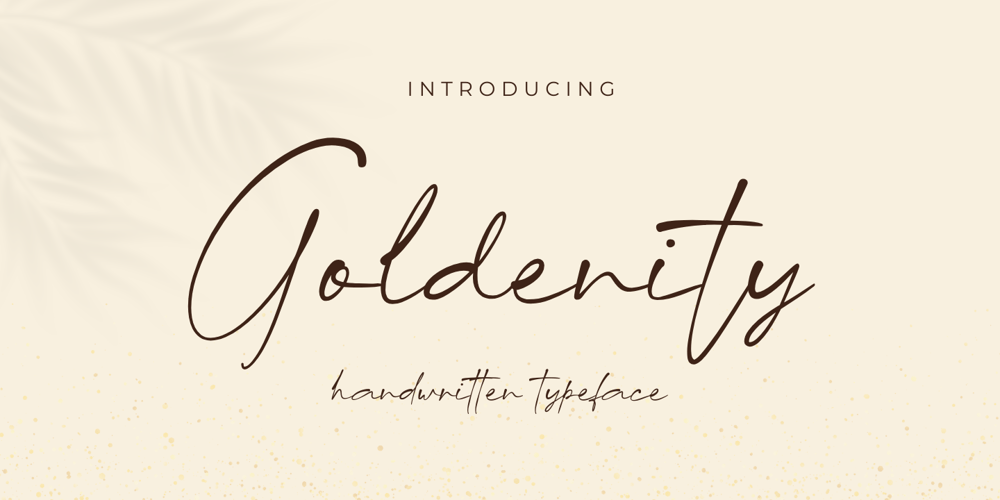
Goldenity
Goldenity font
Goldenity Font Family was designed by Khai Dir and published by Gatype. Goldenity contains 1 styles and family package options. Discover Goldenity Font, a modern handwritten font with ligatures for a natural handwriting look. Goldenity is perfect for wedding invitations, wedding calligraphy, feminine or organic logos, small business branding, packaging, and more!Thank you for visiting my shop! Please don’t hesitate to get in touch if you have any questions!